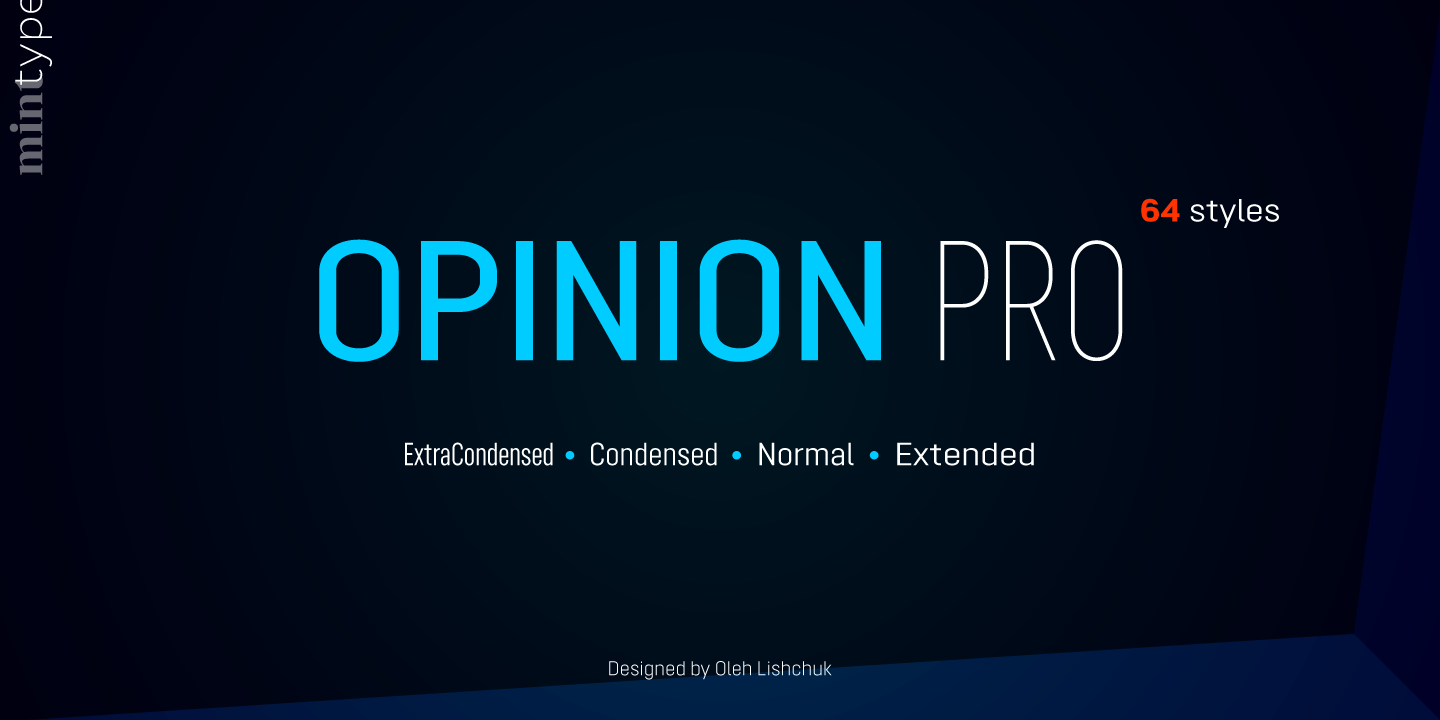
Opinion Pro Font is perfect for editorial opinion columns, professional debate platforms, political commentary publications, think tank research materials, legal argument documentation, intellectual discourse forums, policy analysis presentations, academic opinion journals, professional consultation firms, and authoritative voice brands that require confident typography with editorial authority and intellectual persuasion excellence.
What makes Opinion Pro Font so exciting is its commanding embodiment of intellectual authority through professionally crafted letterforms that capture the confidence and credibility essential for persuasive communication and authoritative opinion expression. This font features strong, well-reasoned character shapes with optimal proportions and clear hierarchy that convey both professional expertise and thoughtful analysis. The authoritative design approach emphasizes clarity and conviction while ensuring excellent readability across argumentative applications, making it perfect for organizations that need to project intellectual credibility, professional opinion leadership, and the persuasive power of well-informed discourse.
The Opinion Pro Font family includes multiple weights and styles: Light, Regular, Medium, Bold, Black, Editorial, and their corresponding Italic variants. Each weight maintains the signature authoritative character while offering comprehensive flexibility for professional design applications and persuasive typographic hierarchies.
Editorial professionals consistently choose Opinion Pro Font Free Download for projects requiring authoritative typography that embodies the spirit of intellectual discourse and professional opinion leadership. Whether you're developing editorial publication brand identities, creating policy analysis materials, designing debate platform interfaces, or crafting professional consultation campaigns, this font delivers exceptional authority and intellectual authenticity. The font's comprehensive character set includes editorial symbols and professional styling options while ensuring optimal performance across both digital and print opinion applications, making it an indispensable tool for designers working on intellectual projects that demand authoritative, persuasive, and professionally credible typography solutions with editorial excellence and opinion leadership sophistication.